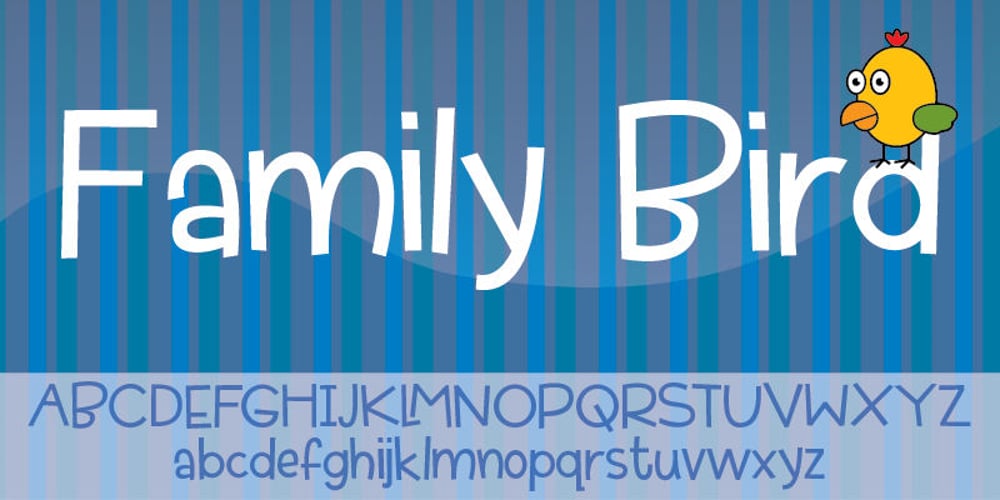
Family Bird
Family Bird font
Family Bird Font Family was designed by Jakob Fischer and published by PizzaDude.dk. Family Bird contains 2 styles and family package options. A funky, yet very legible and playful sans serif font. Comes with a complimentary bold version and has got a good handful of ligatures! You will need to use OpenType supporting applications to use the autoligatures.